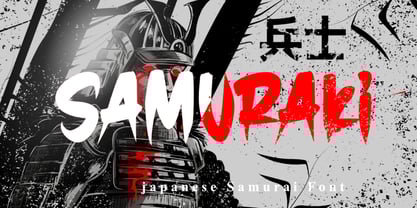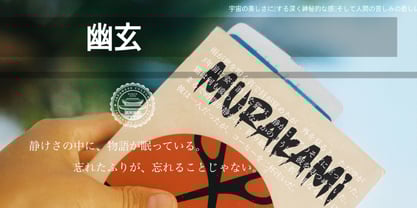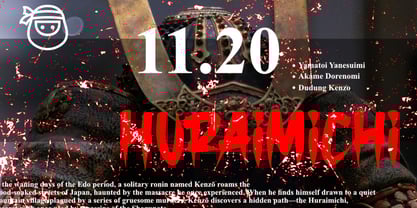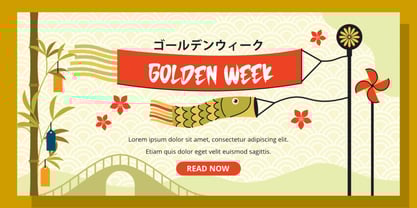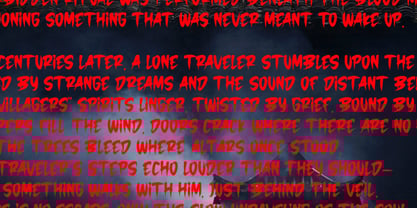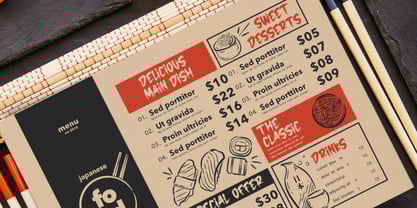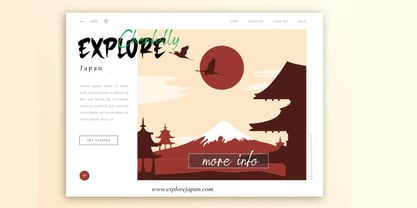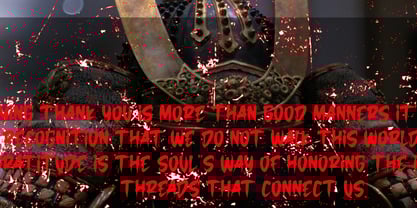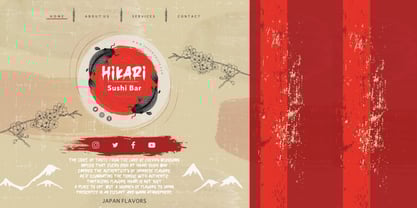
Samuraki
by Bayuktx
The Samuraki Font Family was designed by Bayu Aji Fais Mursid and published by Bayuktx. Samuraki contains 1 styles.
Samuraki Japanese Samurai Font, This font is made with a high premium quality level which you can use as flyers, quotes, posters, banners, packaging, merchandise, logotypes and much more.